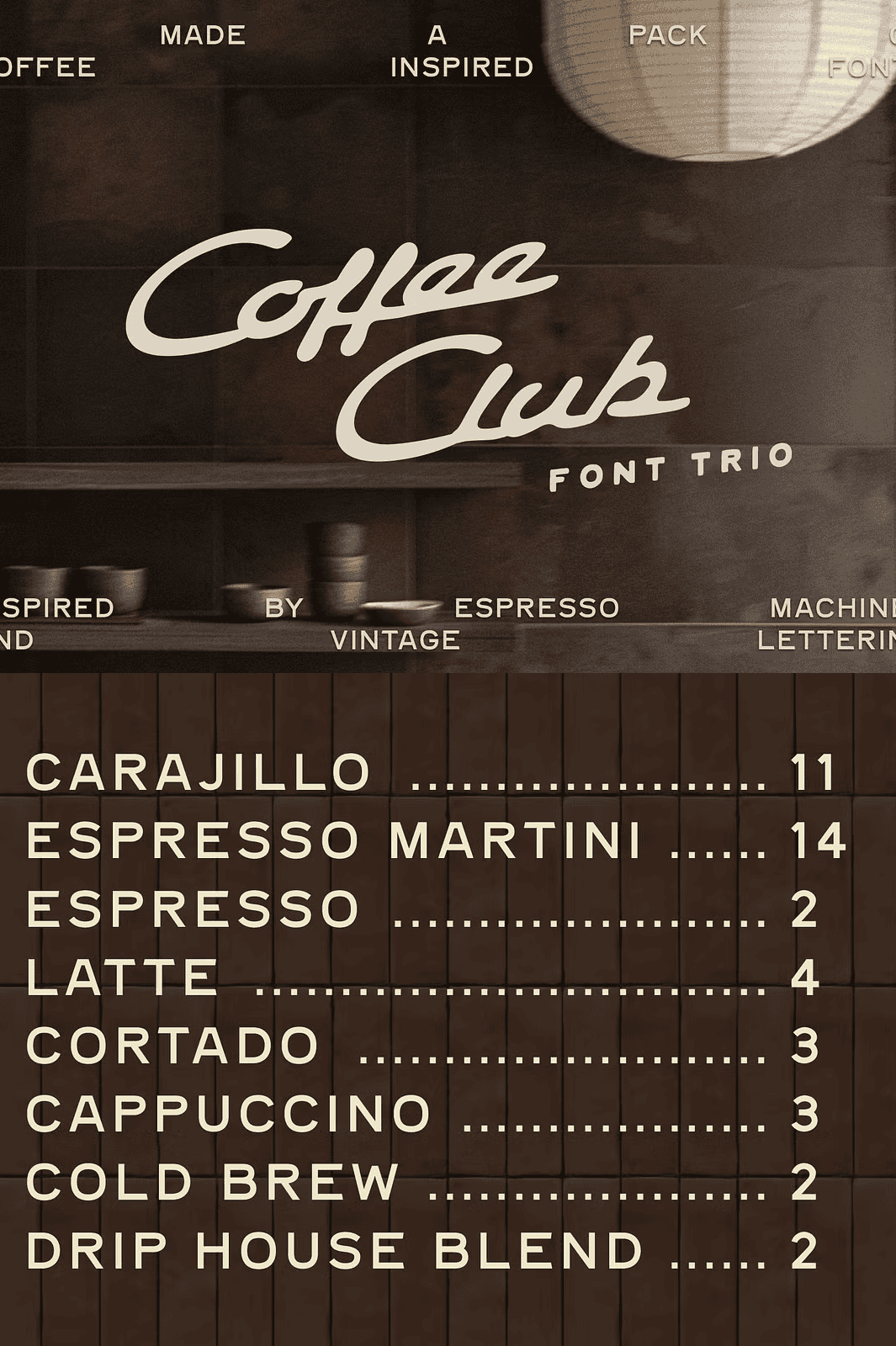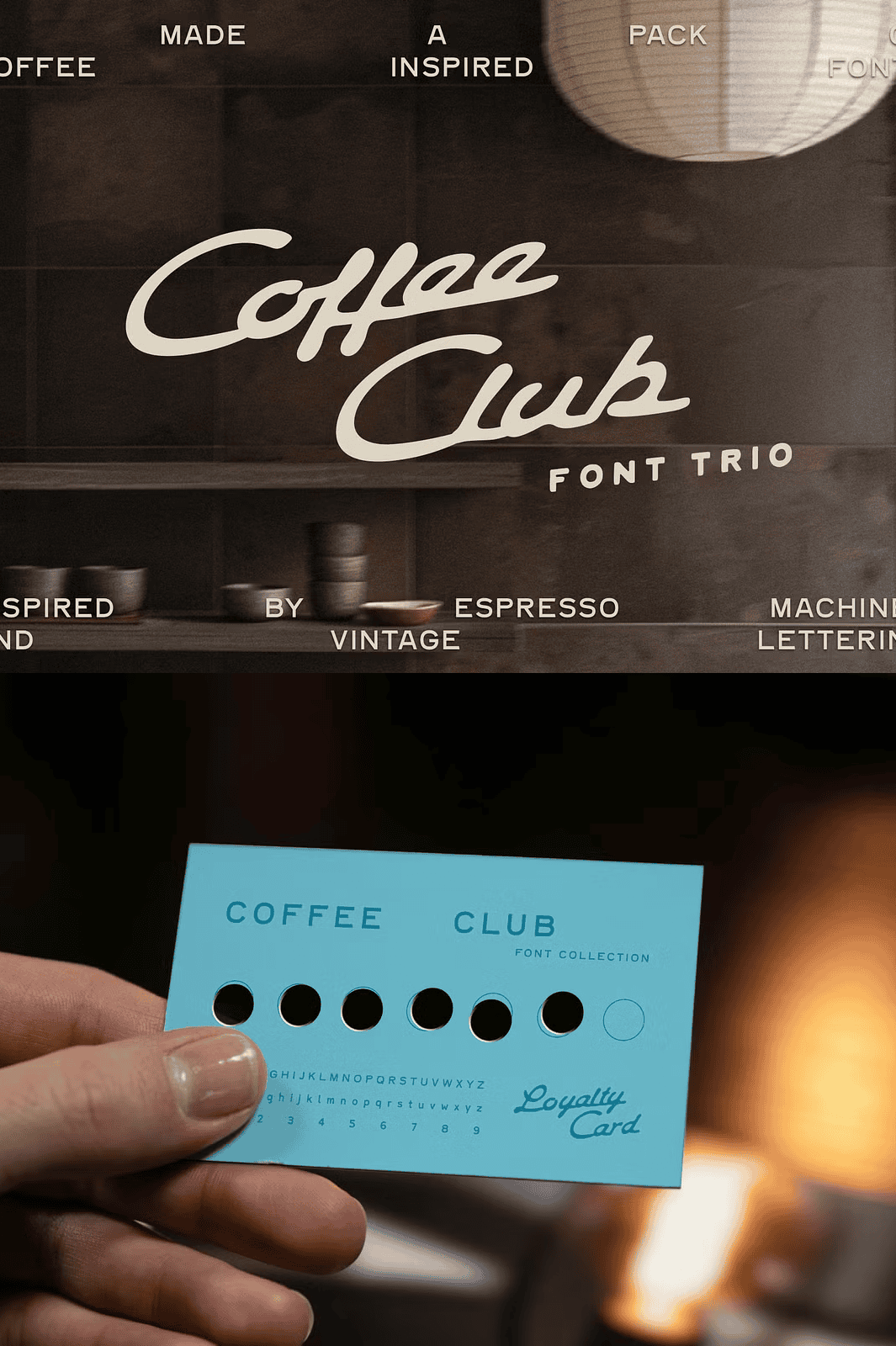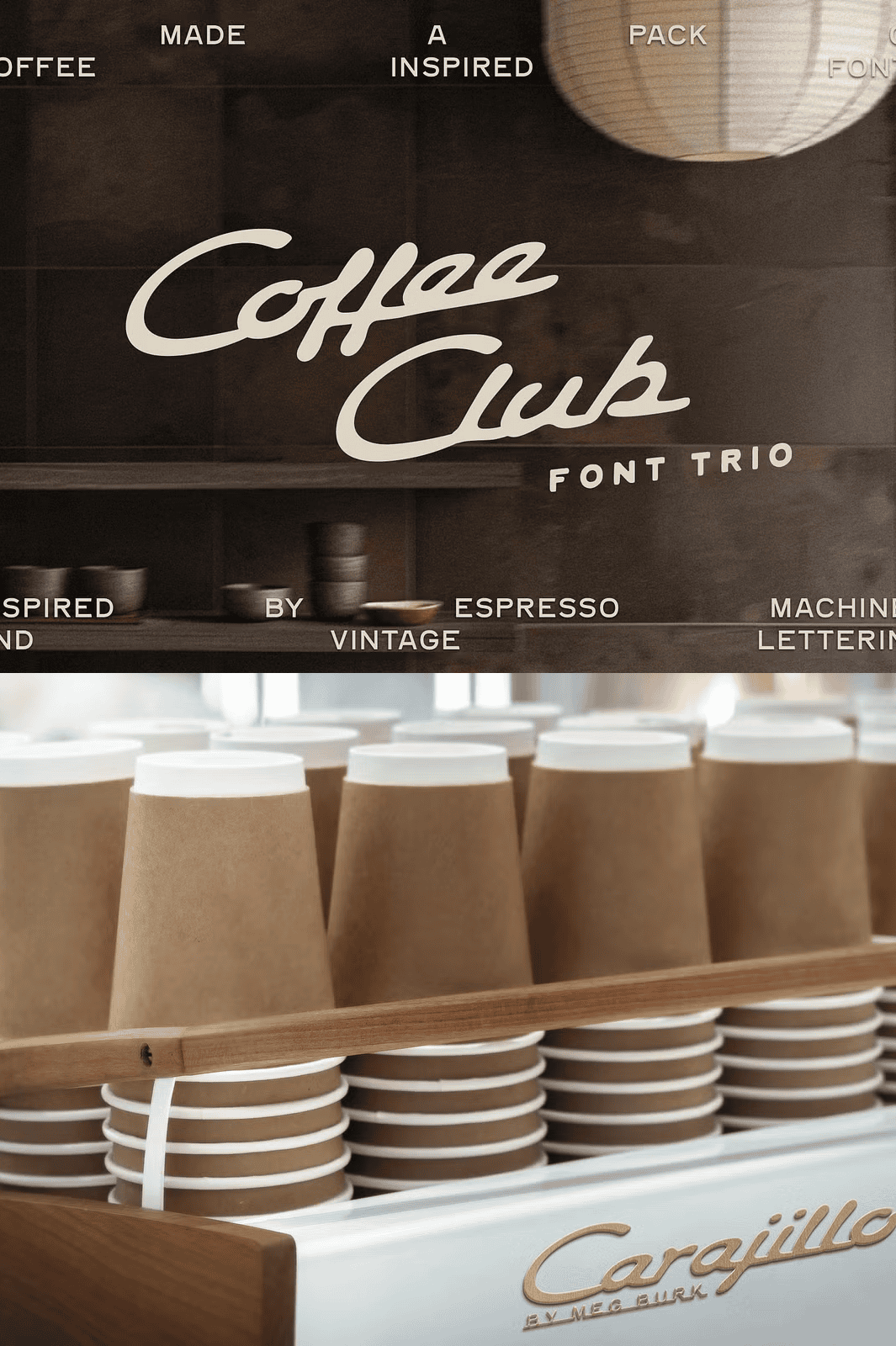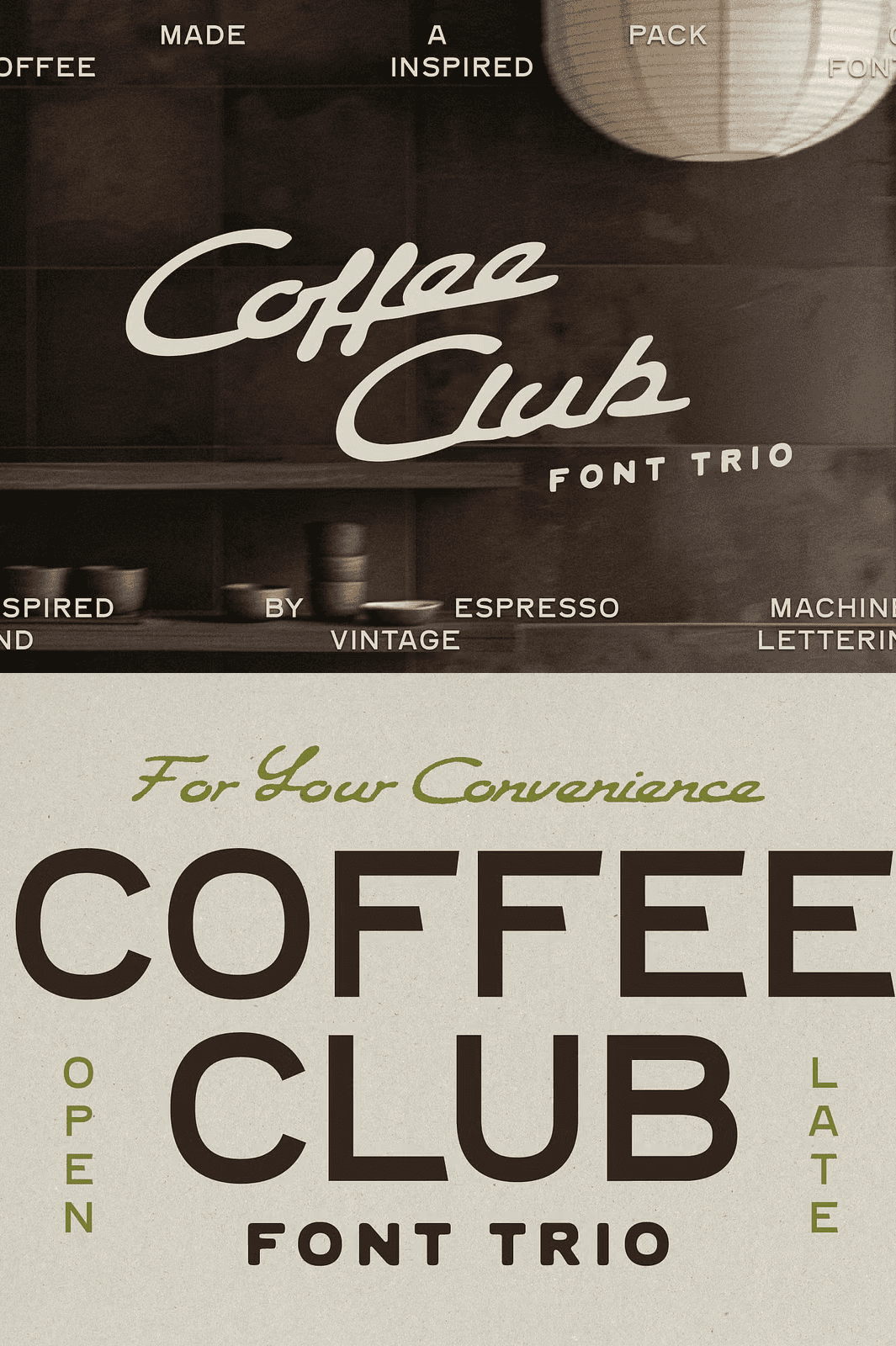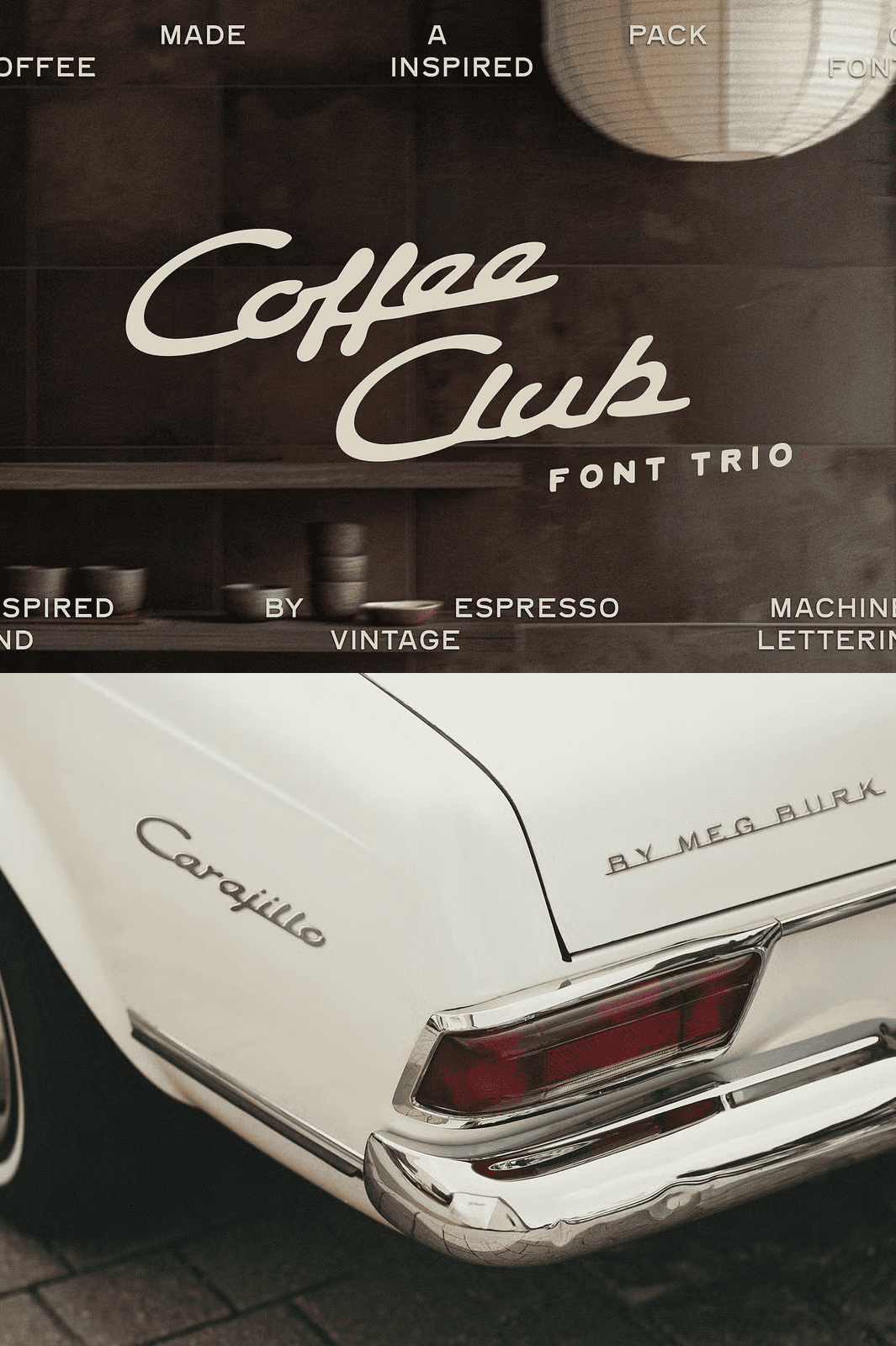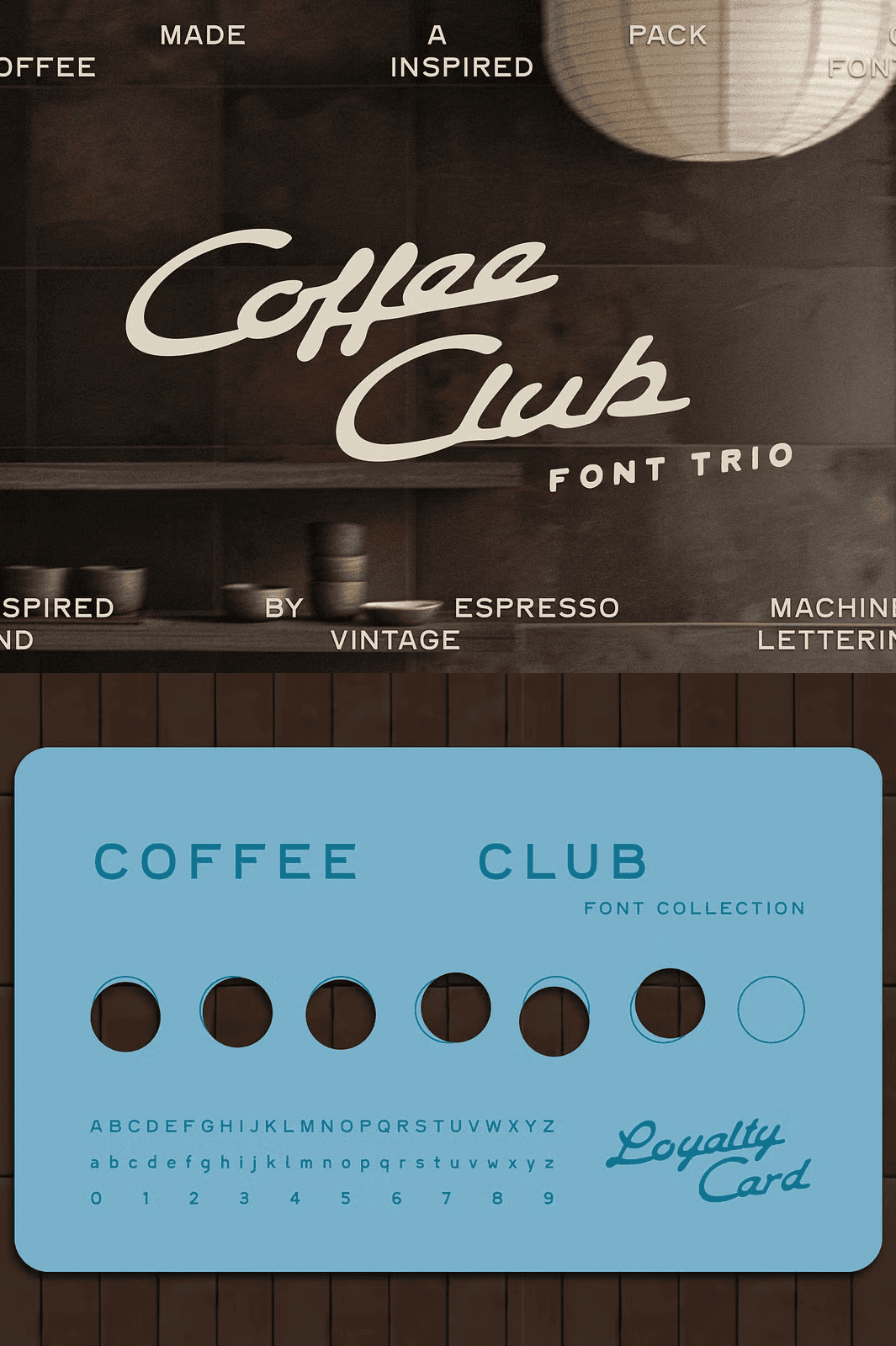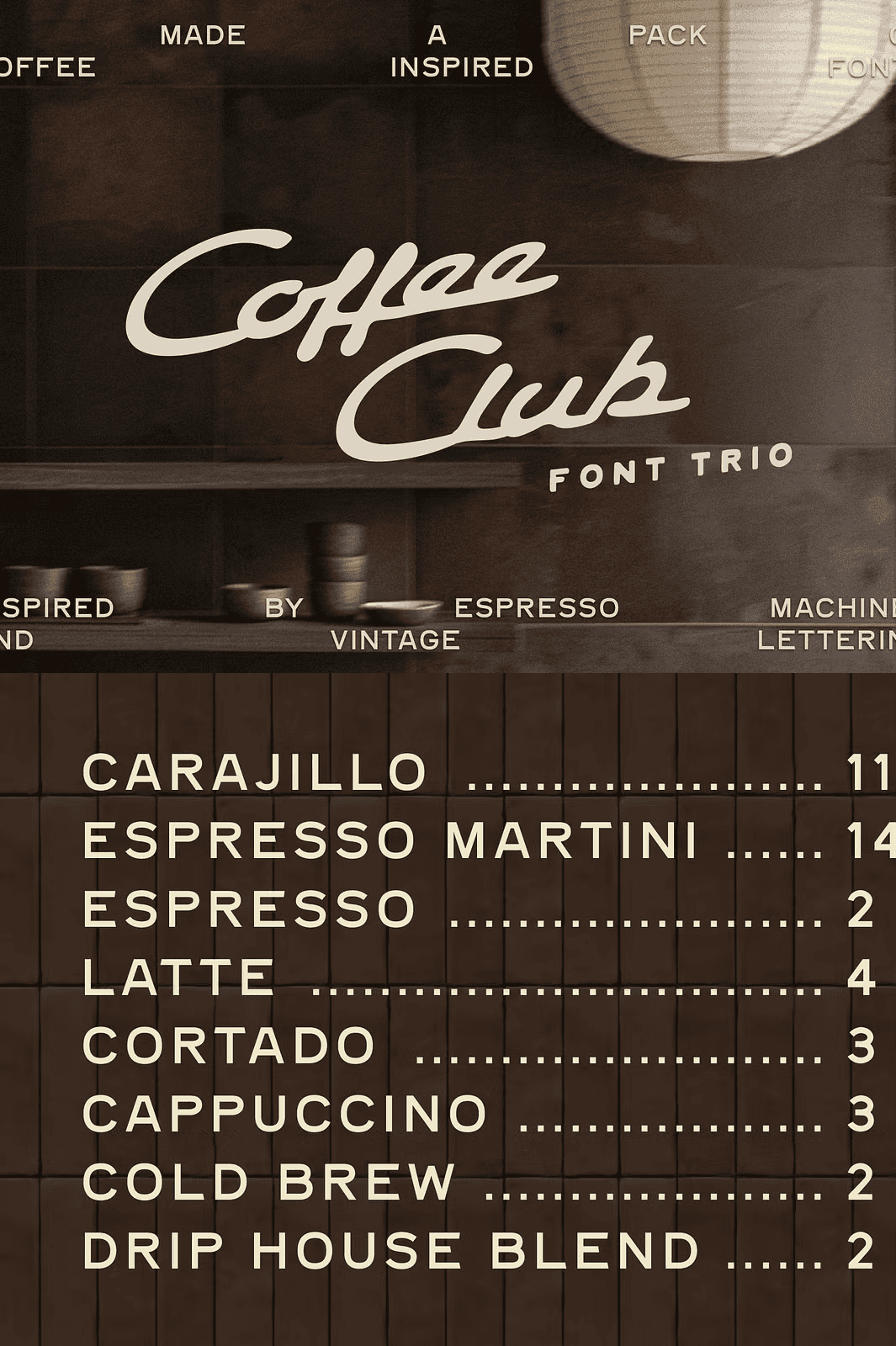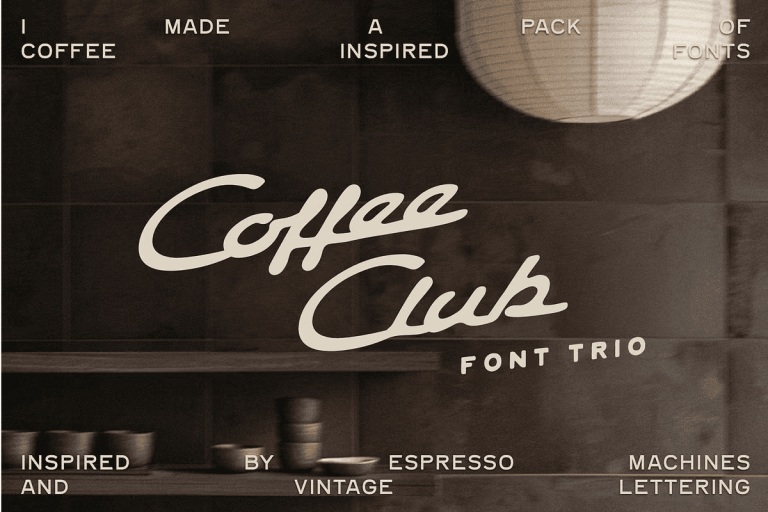
Carajillo Font Collection
Unleash the Spirit of Retro Coffee Culture with Signature Typography
Step into a world where espresso machines whisper stories and vintage emblems ignite inspiration. The Carajillo Font Collection is a bold celebration of mid-century design, born from the raw beauty of real-life metal nameplates on classic espresso machines. It’s more than a font pack it’s a love letter to craftsmanship, community, and the quiet magic of a perfectly pulled shot.
From the graceful curves of the Carajillo vintage script to the structured flair of Cappuccino (with five distinct variations) and the gritty charm of Cowboy, this trio redefines handcrafted typography with authenticity and purpose. Whether you’re building a brand identity or designing a seasonal menu, let these fonts speak the language of warmth, character, and timeless detail.
Masterfully Detailed Typefaces Built for Real-World Impact
Every character in the Carajillo collection is meticulously hand-drawn, then refined in Illustrator to ensure clarity, flow, and aesthetic consistency. No digital shortcuts just honest, thoughtful design inspired by the physical world.
Carajillo: A romantic vintage script with bold swashes and organic flair perfect as your main headline font.
Cappuccino: A robust, structured sans serif family with five stylistic variations. Ideal for body copy, menu layouts, and balance.
Cowboy: A hand-sans style with rugged texture and casual flairp erfect for taglines, event branding, or energetic visuals.
All fonts include uppercase and lowercase letters, full punctuation, numbers, and multilingual support across 30+ Latin-based languages.
Designed for Branded Experiences That Feel Alive and Human
This collection thrives in contexts where authenticity matters:
– Coffee shop branding and shop signage
– Menu boards with nostalgic charm
– Event posters and seasonal campaigns
– Lifestyle brands seeking a retro-meets-modern edge
– Online content with a tactile, artisan feel
Cappuccino’s variations give you unmatched flexibility use one for consistency, mix them for visual rhythm. Carajillo takes center stage in logos and quotes, drawing attention with its elegant imperfections.
Brew the Perfect Visual Vibes for Your Brand
You’re not just adding text you’re building mood and memory. Carajillo doesn’t just spell out words; it delivers personality. It captures the quiet pride of a handmade sign, the smooth confidence of a veteran barista, and the shared joy of connecting over coffee.
Whether you’re launching a pop-up café, launching a new product line, or creating social content, this font family delivers immediate emotional resonance.
Bring Your Brand to Life with Authentic Typography
The Carajillo Font Collection doesn’t just sit on a page it transforms your vision. With its human touch, vintage soul, and modern flexibility, it’s the perfect tool for brands that want to stand out not just in style, but in story.
Don’t just design inspire.
Don’t just type communicate.
Let Carajillo be the voice of your next unforgettable brand.